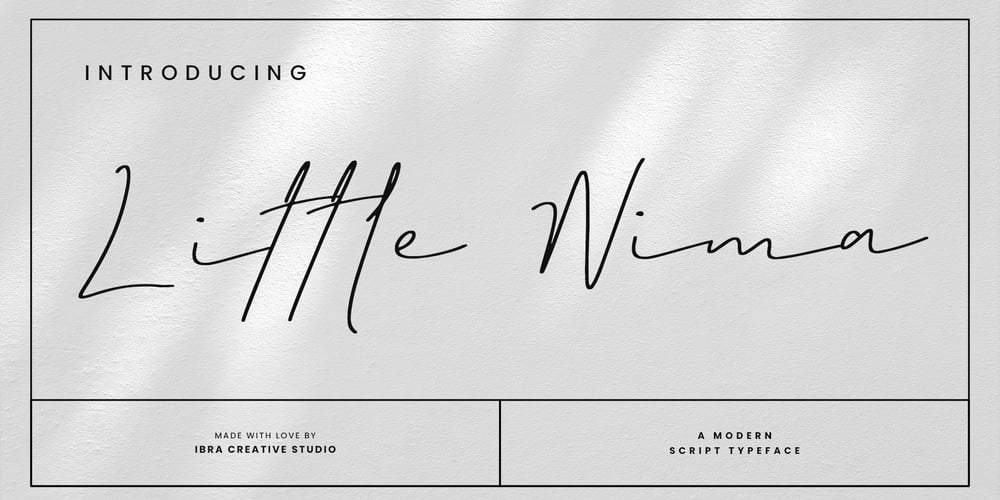
Little Nima Font Family was designed by Roisatul Azizah and published by IbraCreative. Little Nima contains 1 styles and family package options. Little Nima – A Modern Script TypefaceLittle Nima, a modern script typeface, seamlessly blends elegance with contemporary design, offering a harmonious balance between sophistication and approachability. Its fluid and graceful strokes create a dynamic rhythm, allowing the typeface to flow naturally across the page. Little Nima is designed to bring a touch of modernity to any project, whether used in branding, invitations, or editorial design. The clean lines and distinct letterforms ensure readability, while the script’s subtle curves and flourishes add a layer of charm and personality. With its versatile and contemporary aesthetic, Little Nima stands as a testament to the beauty of script typography in the modern design landscape, inviting users to infuse their creations with a touch of timeless elegance. Little Nima is perfect for branding projects, logo, wedding designs, social media posts, advertisements, product packaging, product designs, label, photography, watermark, invitation, stationery, game, fashion and any projects.Fonts include multilingual support for; Afrikaans, Albanian, Czech, Danish, Dutch, English, Estonian, Finnish, French, German, Hungarian, Italian, Latvian, Lithuanian, Norwegian, Polish, Portuguese, Slovak, Slovenian, Spanish, Swedish.